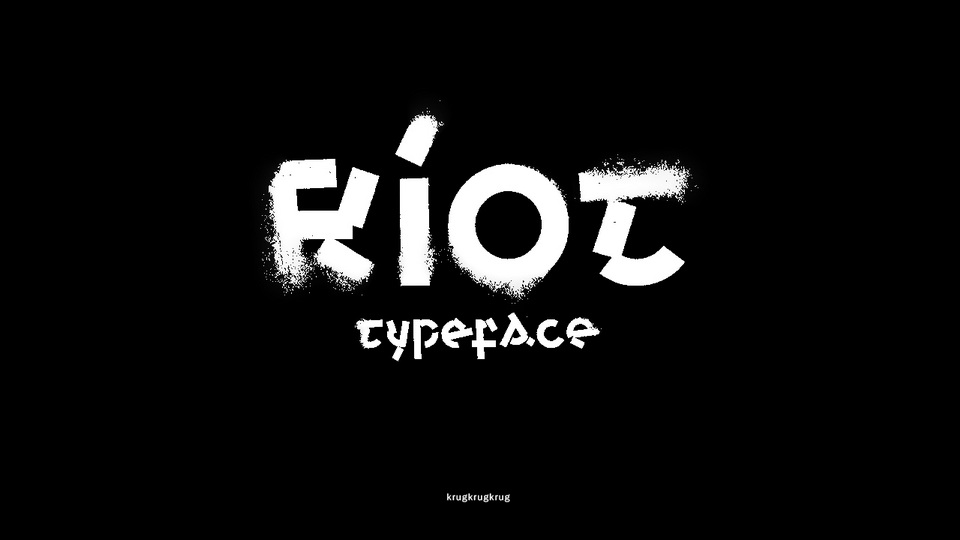
Download Riot font a display typeface based on traditional Irish typography paired with a taped handmade modern style. The concept of Riot font is showing the long lasting conflict between Northern and Southern Ireland.
Designer: Dominik Krüger